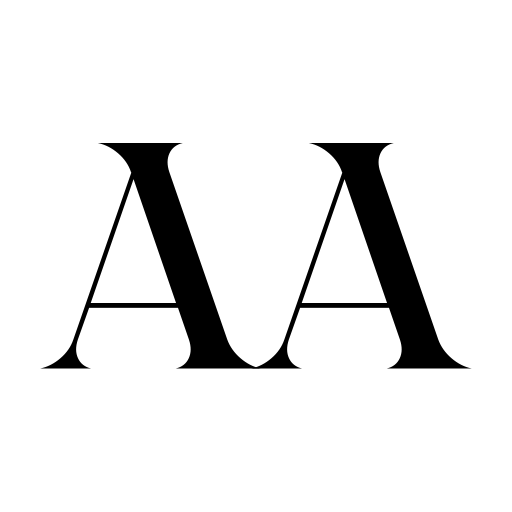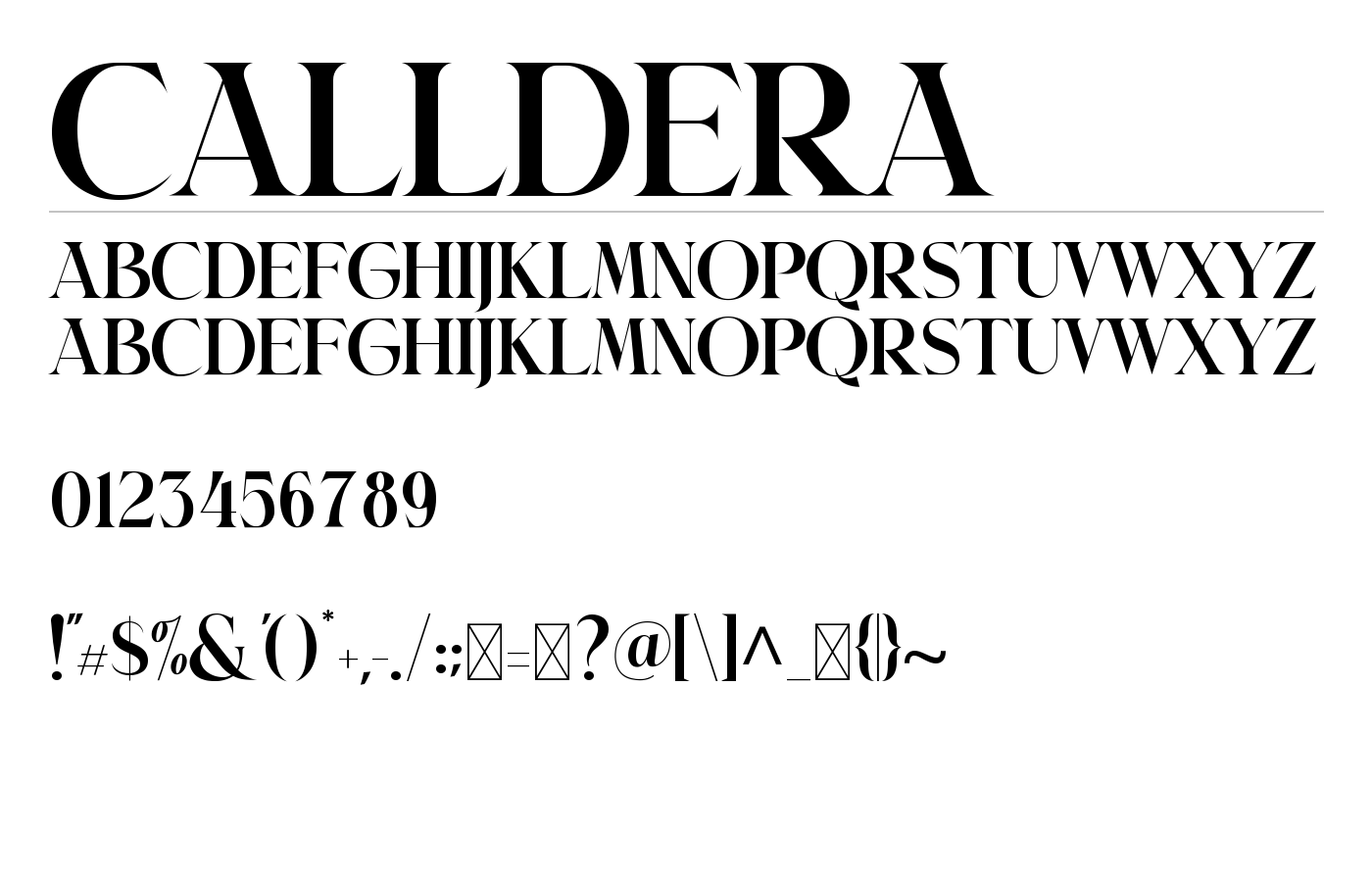
Calldera is an elegant serif font characterized by its high contrast between thick and thin strokes and slender, sharp serifs that create a refined, sophisticated look. Its tall, narrow letterforms and classic style make it ideal for luxury branding, editorial headlines, and formal design projects where a timeless and polished feel is desired. This font stands out with its stylish details and strong presence, perfect for making a bold, upscale impression.
Calldera Font